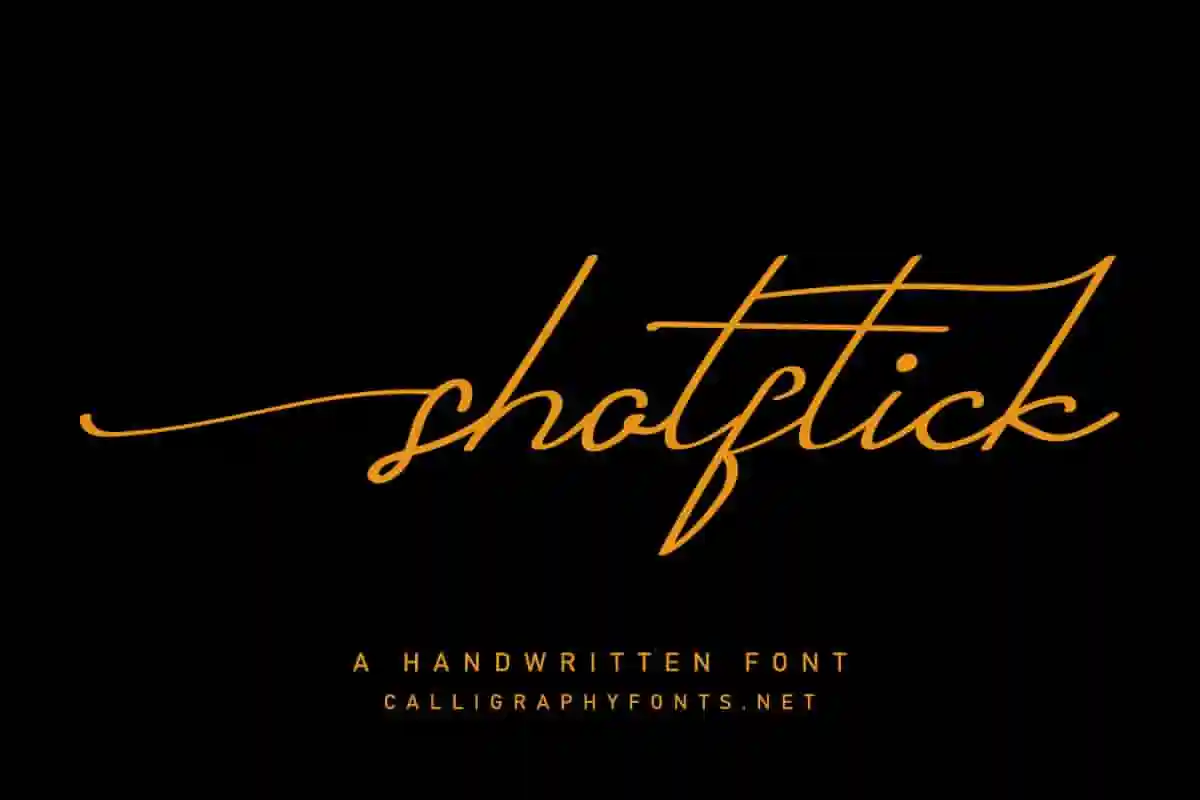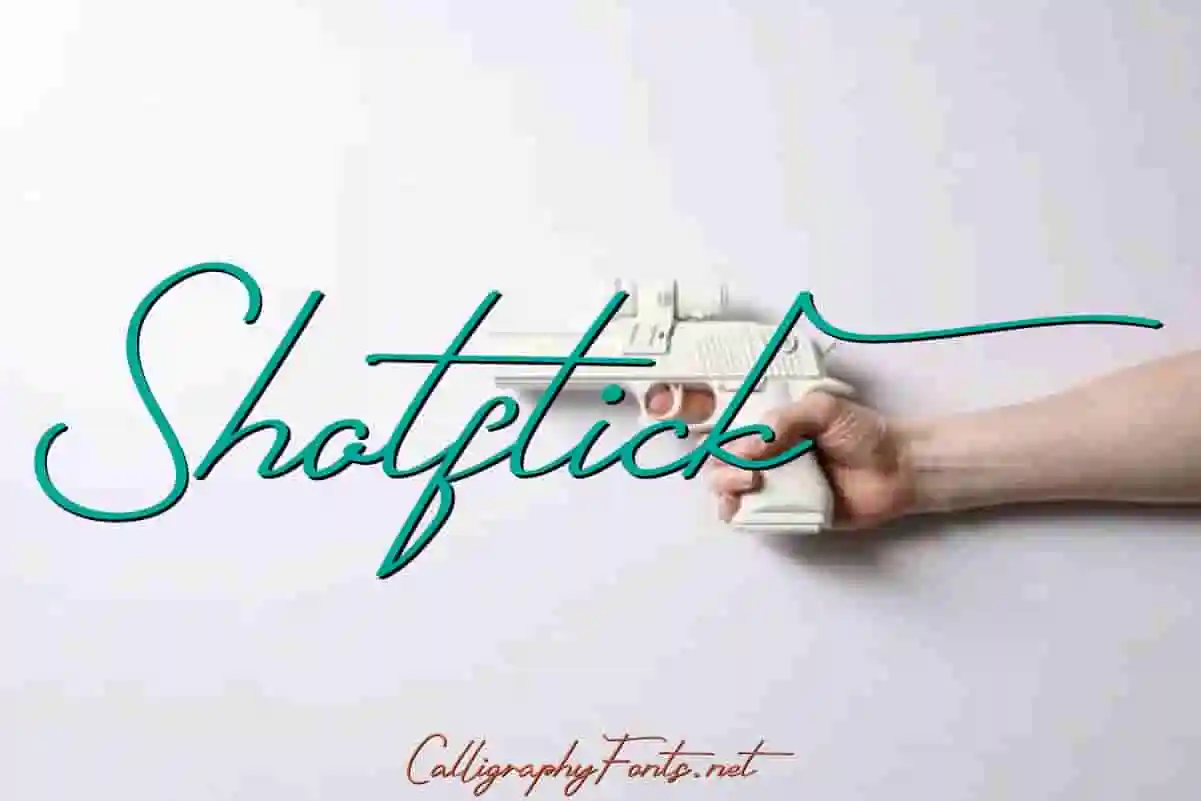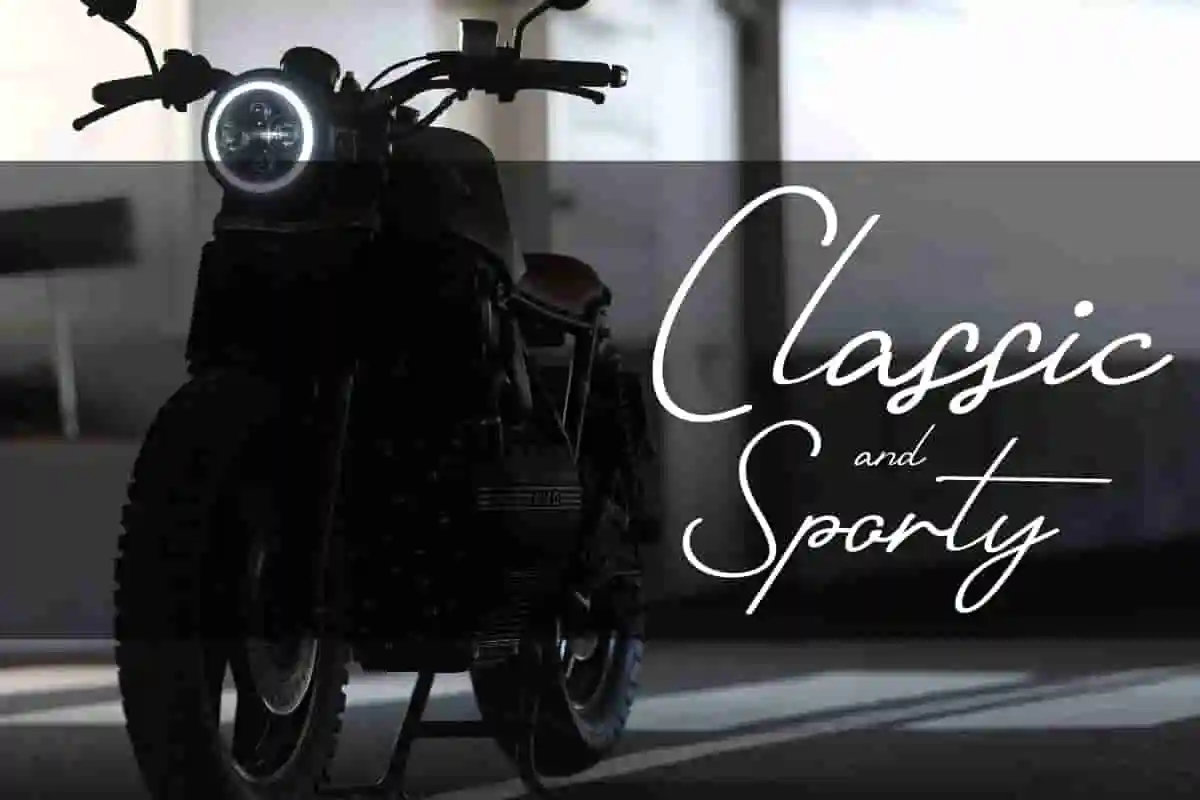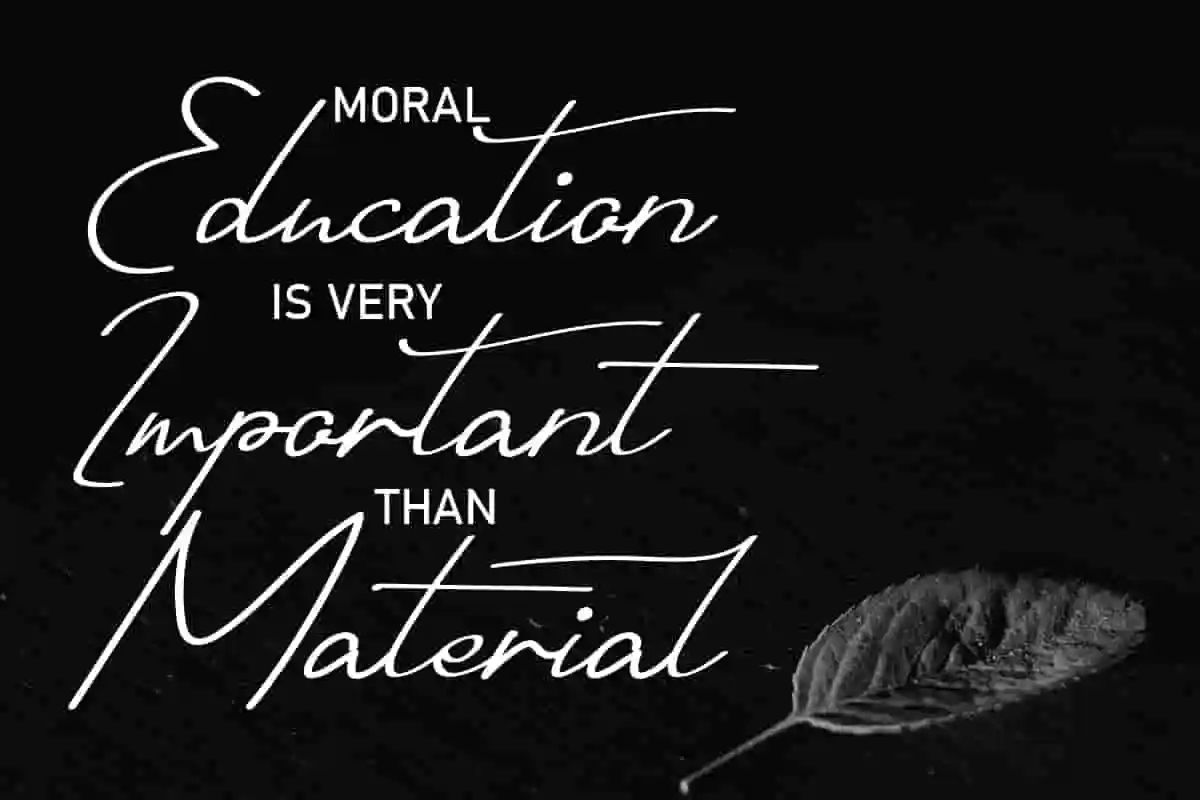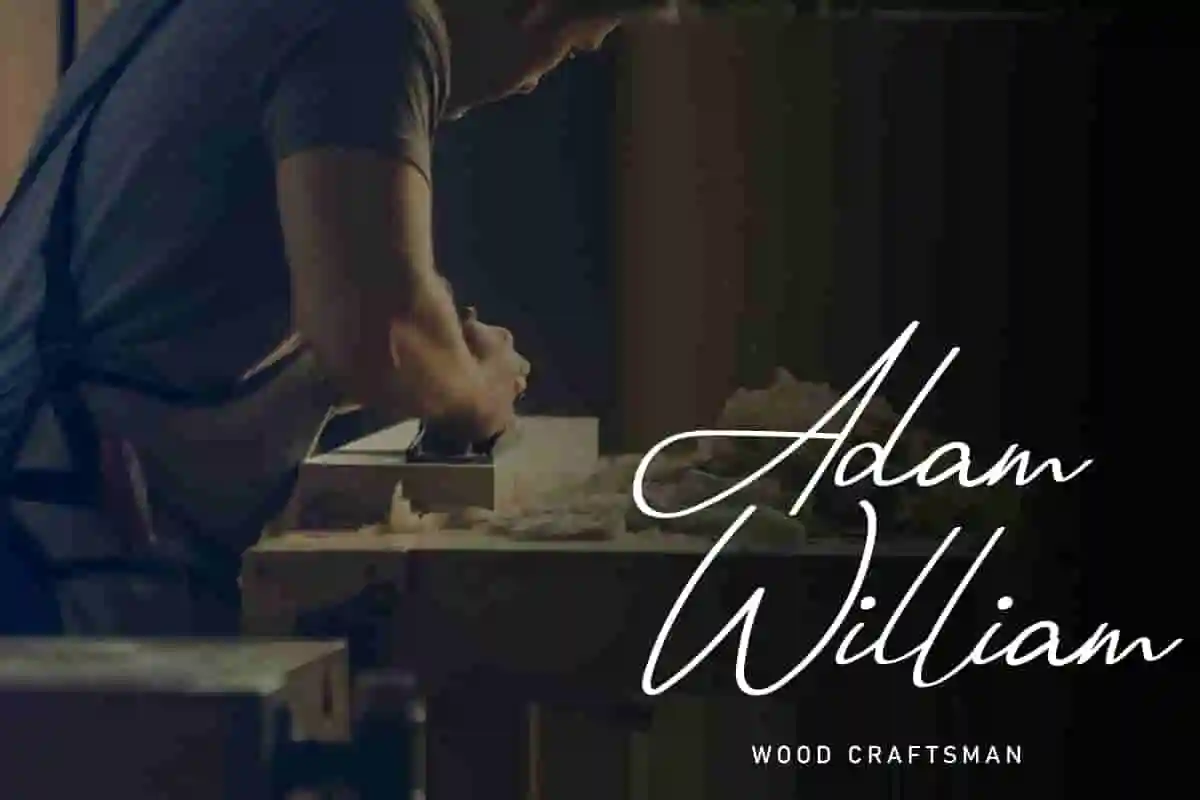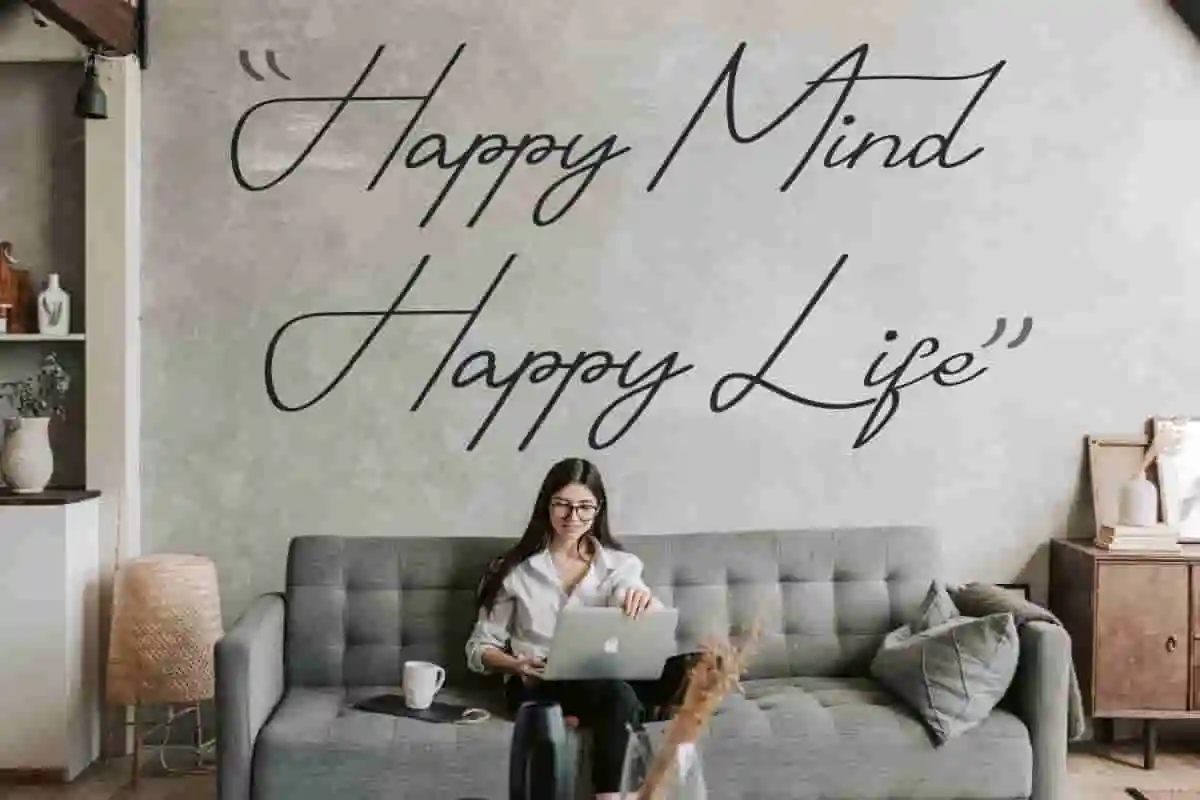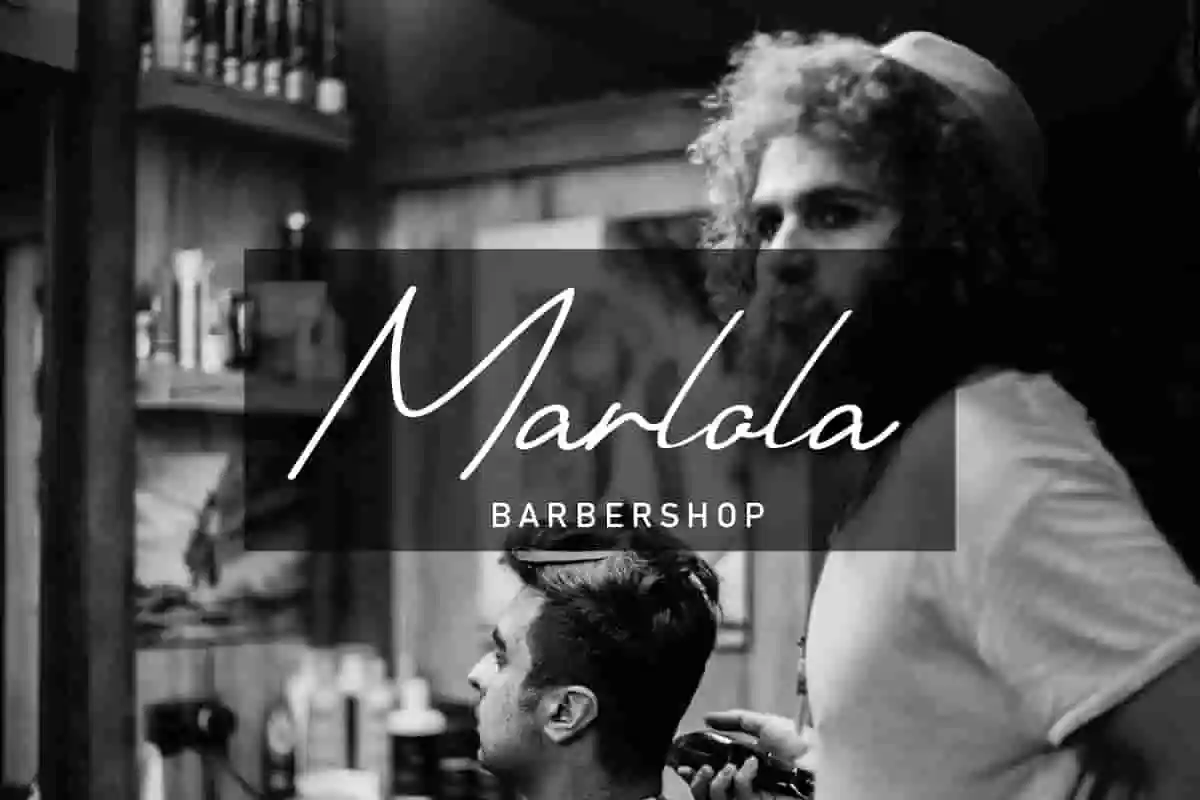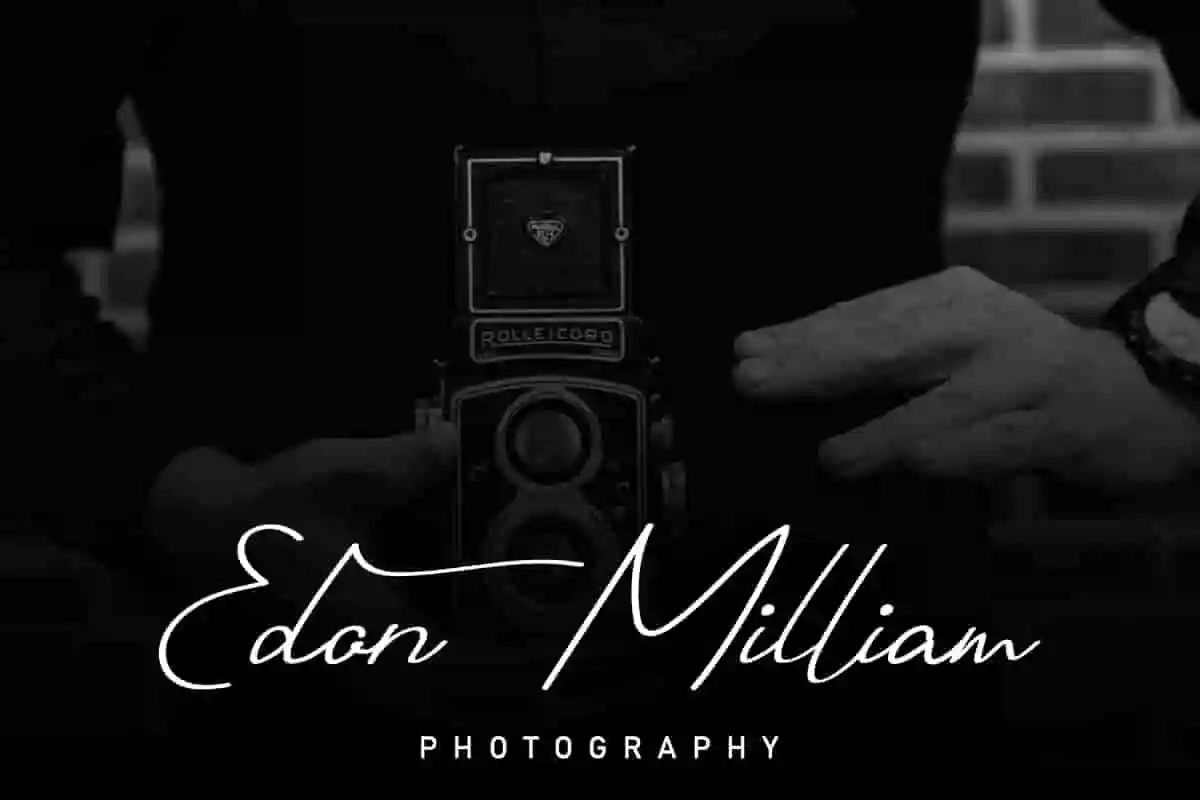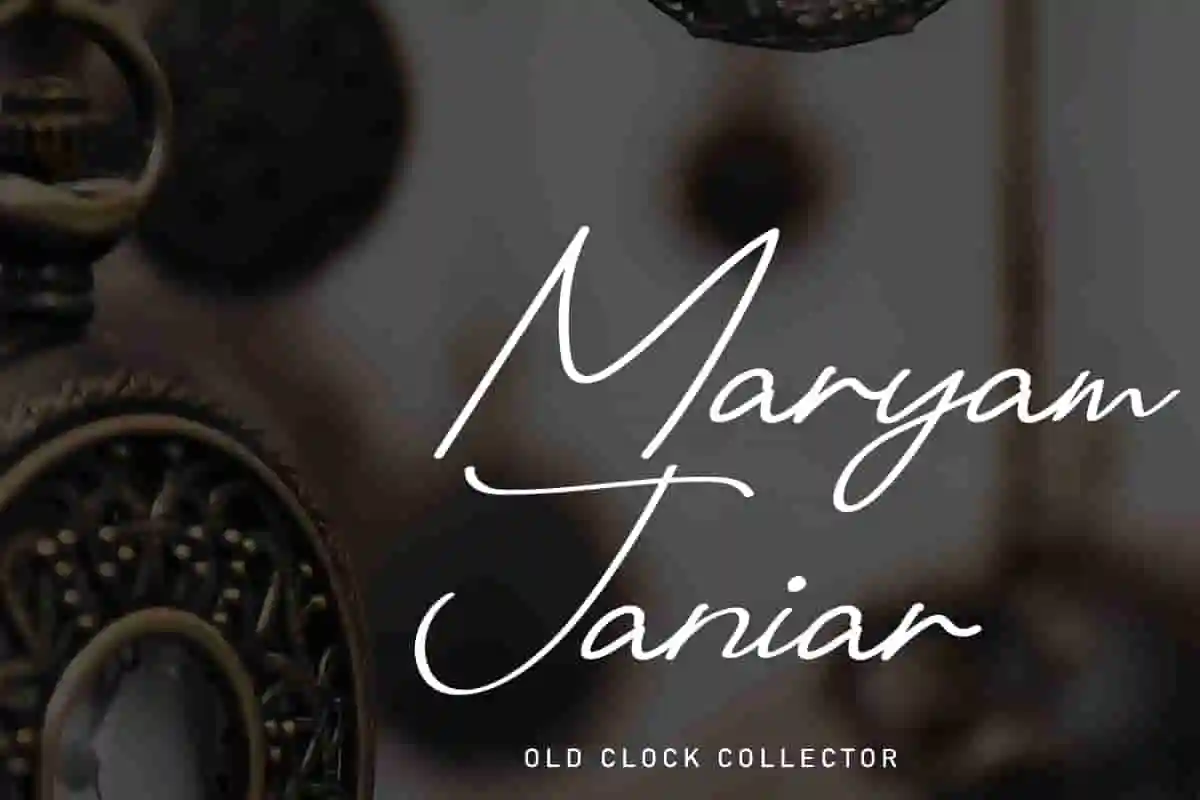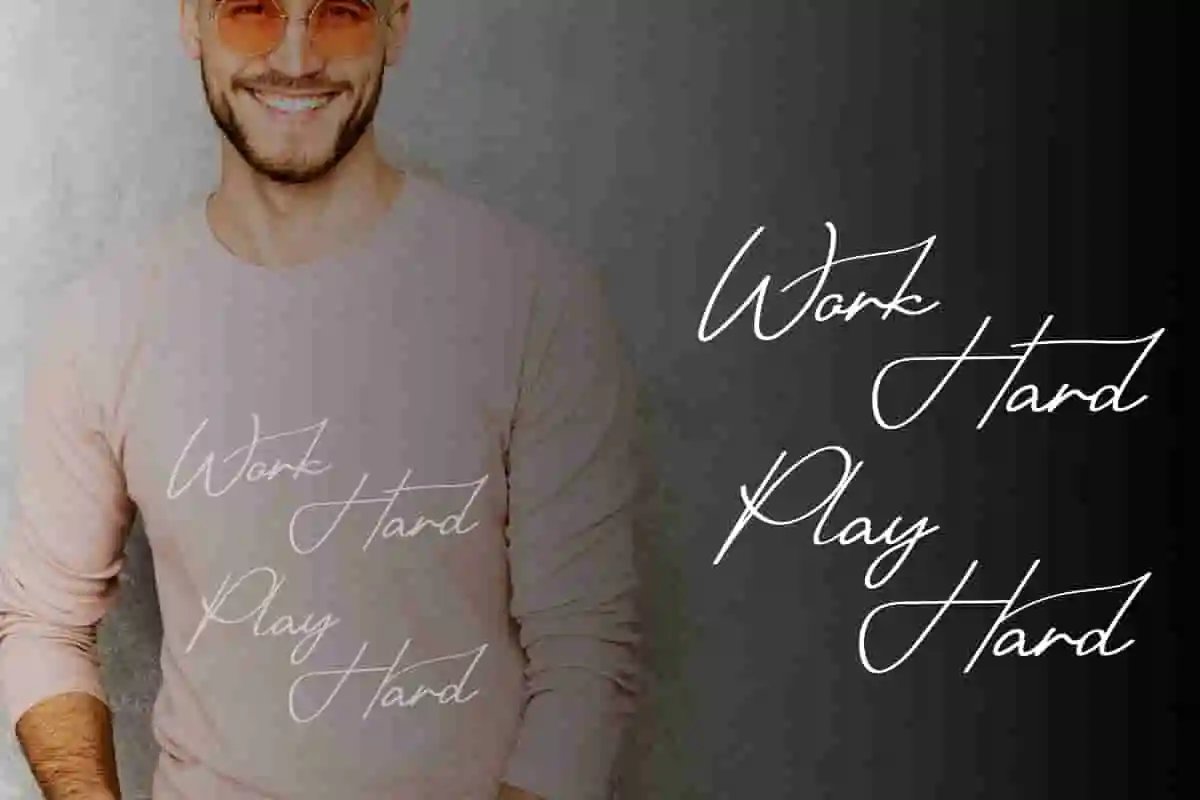
Shotflick Signature Font
Shotflick is a Handwriting signature script font. The style of this font are classic, luxury, glamour, sexy and elegant handwritten pen.
With its smooth curves and classy letterforms, Shotflick Font is ideal for high-end brands, fashion labels, photography studios, and content creators who want to express elegance in their visual identity.
- Full set of uppercase & lowercase letters
Numbers and punctuation